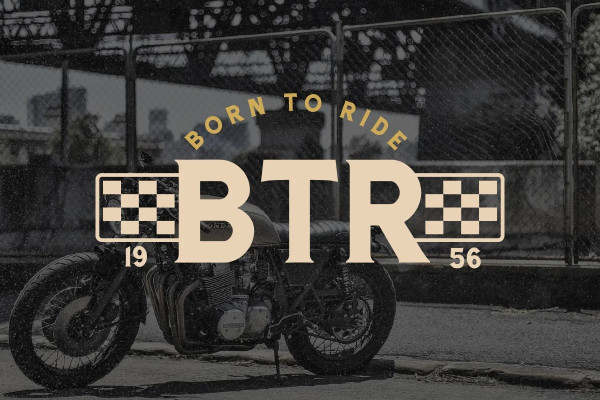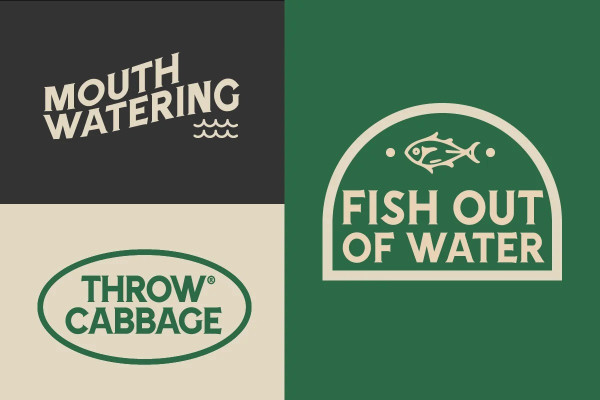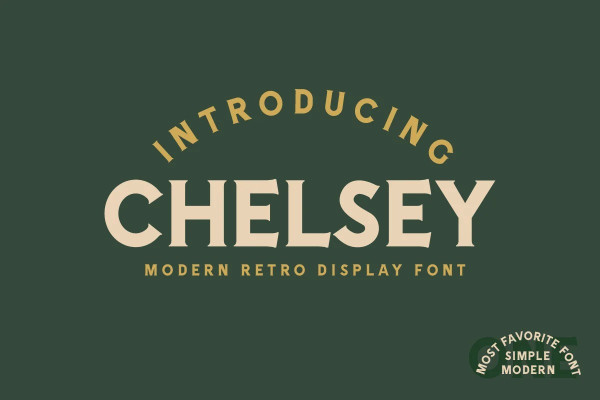
Chelsey Font
Chelsey Font is Modern retro display font. This font is perfect for branding, logos, social media, prints, stickers, shirts, SVG files, and more!
Chelsey o is unique as it can be used for design styles. It fits in wonderfully for motorcycles, Retro design, and more classy looks!
There is a lot of fun stylistic alternates available to use with this font. These letters are embedded into the font file and easily accessible in programs such as photoshop and illustrator.